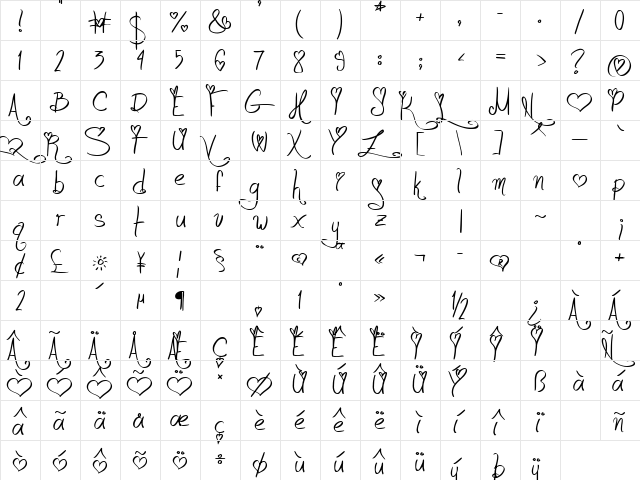
Jellyka - Love and Passion Regular
| Designer | Jellyka Nerevan |
Design Context for Jellyka - Love and Passion Typeface
Jellyka - Love and Passion is a composed and adaptable typeface that performs quietly and consistently across a wide range of design contexts.